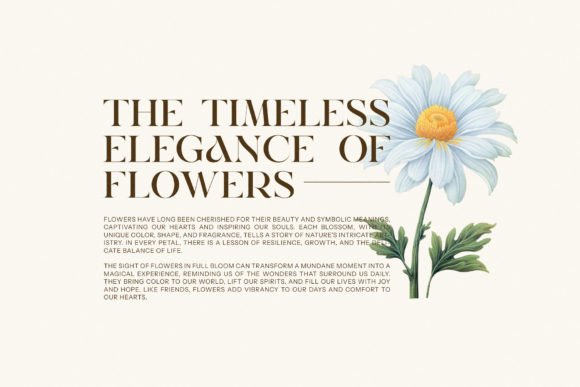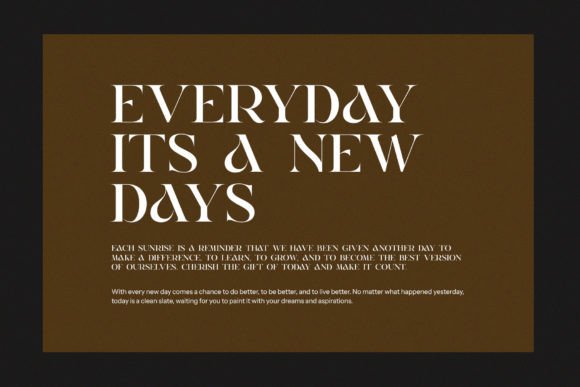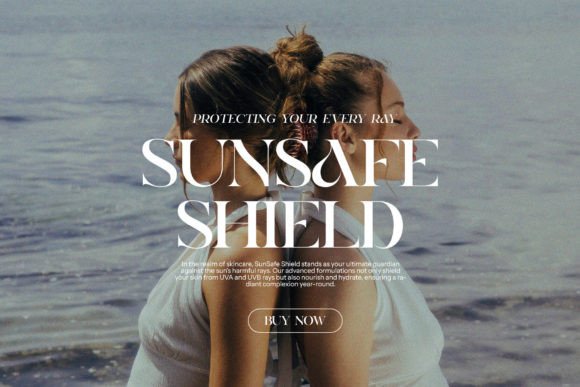
Introduction to Galins Font
Have you ever found yourself staring at a blank canvas, waiting for inspiration to strike? For designers, this moment is all too familiar. But what if the perfect font could be the spark that sets your creative project ablaze? Enter Galins Font, a modern elegant serif font that’s about to become your new go-to design resource.
With its high quality design and versatility, Galins Font is perfect for a wide range of projects, from branding and logos to social media posts and product packaging. Whether you’re working on a high-end advertising campaign or a simple invitation design, this font is sure to elevate your work and make it stand out. And the best part? It’s available for free download, so you can start using it today.
Key Features of Galins Font
- Galins Font is a high-quality design resource that offers a unique and creative look for your project.
- It comes with a transparent background, allowing for seamless integration with any design or background.
- The font size is scalable, allowing designers to adjust the size to fit their specific needs.
- Galins Font features a high resolution of 300 DPI, ensuring crisp and clear text even at large sizes.
- Its modern and sleek design makes it an excellent choice for creative projects, including branding, logos, and digital designs.
Honest Review: Galins Font
As a designer, I’m always on the lookout for high-quality design resources to elevate my creative projects. Recently, I stumbled upon the Galins Font, and I’m excited to share my honest review with you.
- ✨ Clean and modern design aesthetic that’s perfect for contemporary branding and digital projects.
- ✨ Transparent background option makes it easy to use with any design element or color scheme.
- ⚠️ Limited character set, which may not be suitable for long-form content or complex text arrangements.
- ⚠️ May not be as versatile as other fonts, but it excels in its simplicity and modernity.
Overall, I’m impressed with the Galins Font’s clean design and free download option. While it may have some limitations, it’s a great resource for designers who need a modern and simple font for their creative projects. I’d definitely recommend it for branding, digital products, and other applications where a clean and contemporary look is desired.
Tips for Getting the Most Out of Galins Font
Galins Font is a high-quality font that works well with transparent backgrounds, making it perfect for creative projects. To get the most out of it, use it in combination with a clear and simple design to let the font shine. You can also experiment with different font sizes and colors to create a unique look.
Galins Font is commonly used in a variety of creative projects, including branding, marketing materials, and digital graphics. Its high-quality design and transparent background make it perfect for use on websites, social media, and other online platforms.